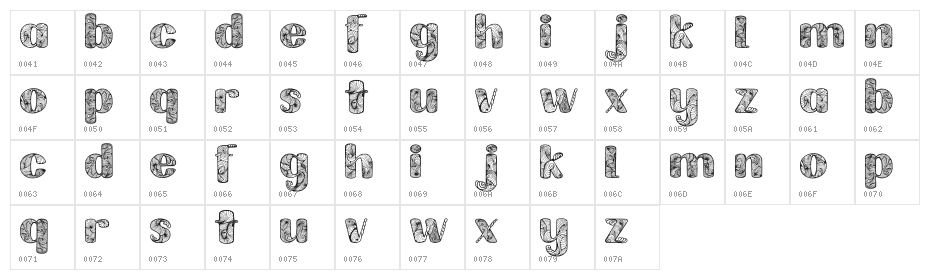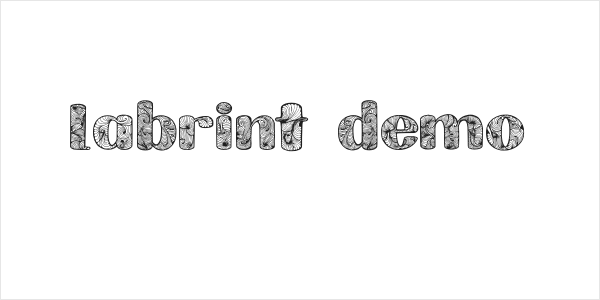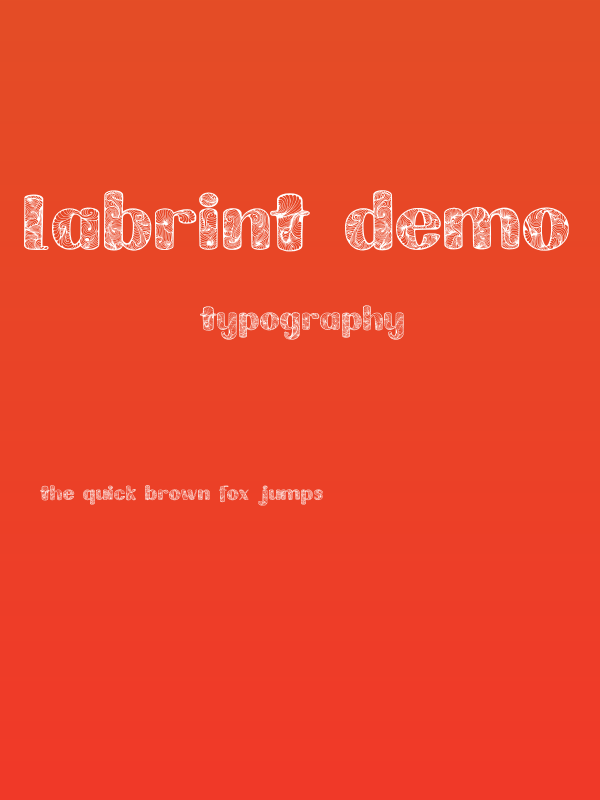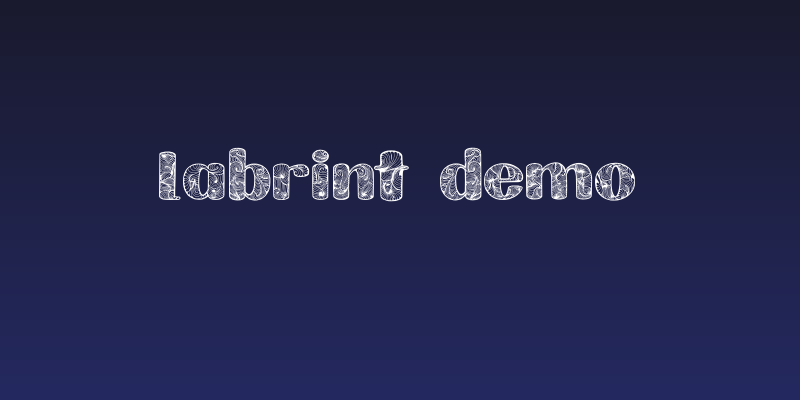
Labrint Demo Font
Labrint Demo Description
This font features an intricate and decorative design with swirling, maze-like patterns filling each character. The letters are bold and rounded, giving them a playful yet sophisticated appearance. The intricate detailing within each letter adds a sense of depth and texture, making it visually captivating. This font is perfect for projects that require a unique and artistic touch, as it stands out with its elaborate and ornate style. The overall look is both whimsical and elegant, making it suitable for creative and imaginative designs.
| Use Case | Logos, Posters, Invitations |
| Proposed Projects | Ideal for artistic projects, invitations, posters, and branding that require a unique and decorative touch. |